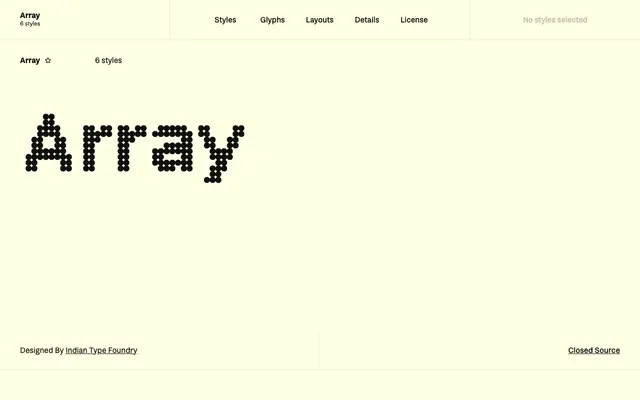
Array
A six-style dot-matrix display family from Indian Type Foundry, with letterforms constructed entirely from dots on a regular grid.
Each letterform in Array is built on a strict dot grid, with capitals sitting 10 dots tall and lowercase letters scaled proportionally. Weight variation is achieved by widening the stems rather than changing dot size, running from two dots wide in Regular to four in Bold. A Wide variant adds lateral spacing to each weight, making six styles in total, suited to posters, signage and experimental editorial work at large sizes.
Array mimics electronic dot-matrix displays, with letterforms built entirely from dots on a grid. Fontshare categorises it as Display, and its construction is too stylised and novelty-driven to sit in any standard sans-serif subcategory.